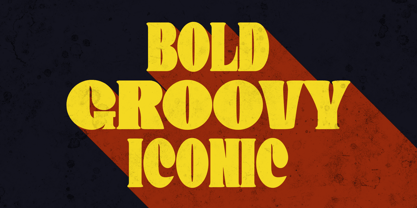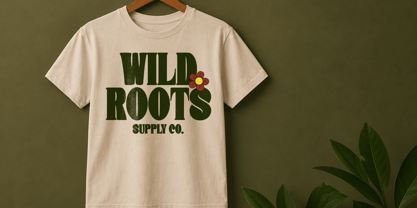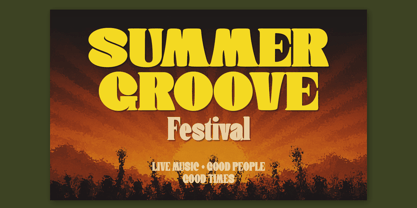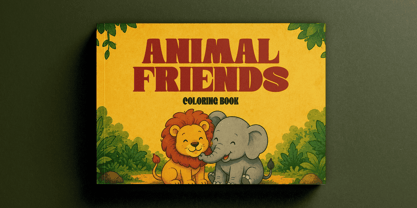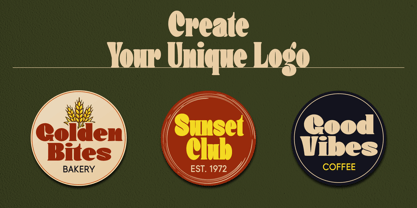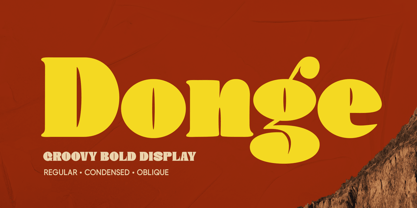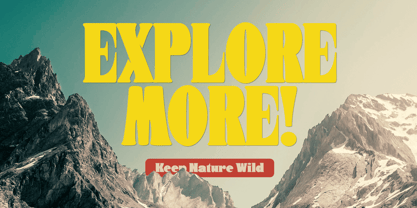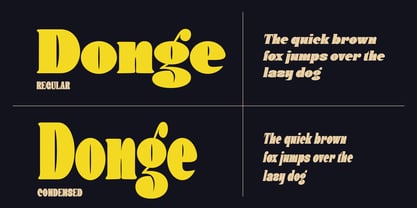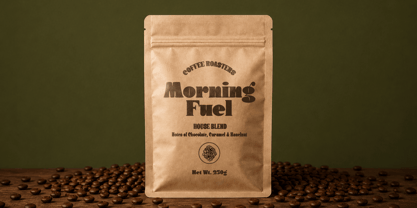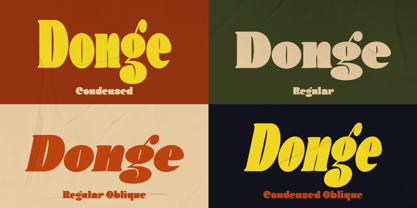
Donge
A família de fontes Donge foi desenhada por Dwi Ahidian e publicada pela Lemonthe. Donge contém 4 estilos e opções de pacote familiar. Saiba mais sobre esta família
Donge is a bold groovy display font inspired by the retro vibes of the 70s. Featuring chunky letterforms, smooth curves, and distinctive details, Donge is designed to bring warmth, personality, and strong visual impact to any project. Its unique character blends nostalgic charm with modern versatility, making it an excellent choice for logos, branding, packaging, posters, merchandise, apparel, social media graphics, and eye-catching headlines. With its bold presence and distinctive personality, Donge adds a memorable and recognizable touch to a wide range of creative work.
Available in Regular and Condensed styles, Donge offers the flexibility needed for a wide range of design projects. With its bold shapes, expressive curves, and distinctive retro charm, Donge is the perfect choice for creating work that stands out, feels memorable, and leaves a lasting impression.